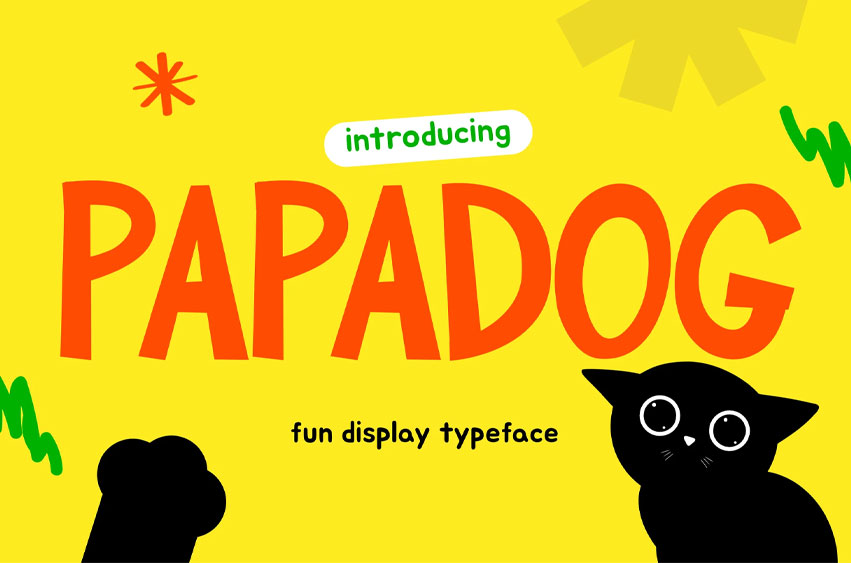
Papadog Font is a playful display typeface crafted for designers seeking a kid-friendly lettering style with bouncy curves and expressive handwritten energy. Its rounded strokes, uneven motion, and cheerful visual rhythm create a warm, friendly tone that fits perfectly into modern storytelling graphics. The font carries a fun, optimistic vibe, making it ideal for branding projects, Instagram visuals, food packaging, and youthful advertising.
With its wavy proportions and organic letter flow, Papadog brings a lively personality to every word. Each glyph feels hand-crafted, giving your designs a sense of authenticity and approachable charm, especially in markets that rely on bold character, eye-catching colors, and expressive compositions.
Papadog is built for creators who want designs that spark attention instantly—whether you are crafting kids book titles, restaurant menu layouts, snack packaging, playful posters, or social media campaigns. The font’s cheerful mood effortlessly connects with audiences, helping brands communicate warmth, friendliness, and fun. Its expressive shape structure makes headlines instantly recognizable, reinforcing strong visual identity across branding, editorial graphics, and digital product promotions.
Key Features : Bold Highlights
• Playful handwritten character style
• Rounded, bouncy shapes with expressive movement
• Highly readable for headlines, menus, and packaging
Perfect For :
• Kids books & educational materials
• Food and beverage branding
• Social media graphics & Instagram ads
• Event posters & cheerful promotional content
• Product packaging & storefront signage
Design Advantages :
• Instantly sets a joyful, friendly mood
• Enhances storytelling visuals with character-rich forms
• Helps brands stand out through expressive typography
• Adds emotional warmth to marketing materials
Bring energy, personality, and friendly storytelling into your next project with Papadog. Give your brand a lively visual voice and transform simple layouts into playful, memorable designs. Start creating standout work today and let Papadog brighten every headline you craft.